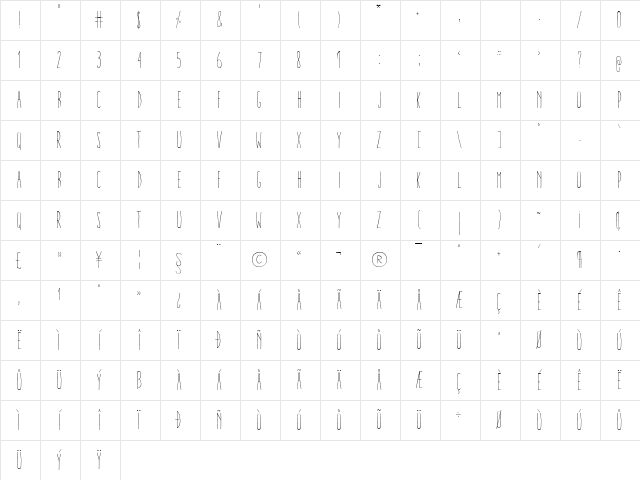
Aracne Ultra Condensed Light Ultra-condensed Light Free Font
Aracne Ultra Condensed Light Ultra-condensed Light
Style: Ultra-condensed Light
Foundry: Julia Martinez Diana, Antipixel.
Designer: Julia Martinez Diana, Antipixel
Aracne Ultra Condensed Light Family
Aracne Ultra Condensed Light Ultra-condensed Light
Design Context for Aracne Ultra Condensed Light
Aracne Ultra Condensed Light is a composed and adaptable typeface that performs quietly and consistently across a wide range of design contexts. Its slender proportions lend an understated elegance to any composition. Its narrow stance lets it pack a punch even in space-constrained designs.
Who designed the Aracne Ultra Condensed Light Ultra-condensed Light font?